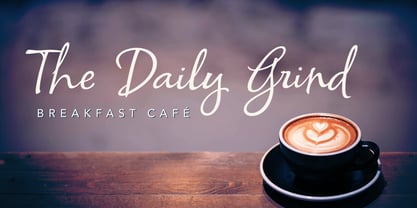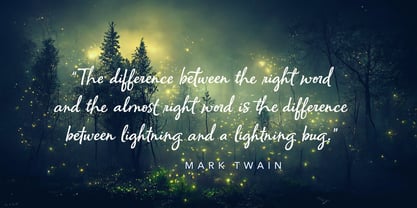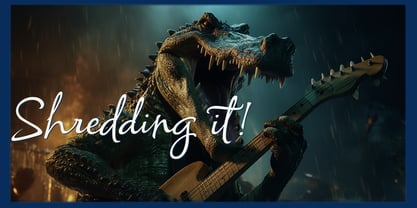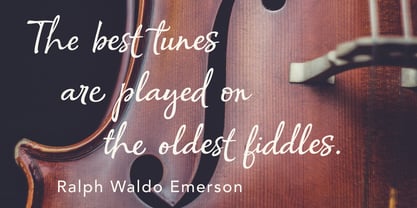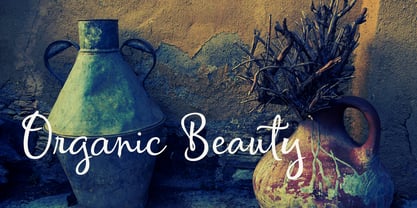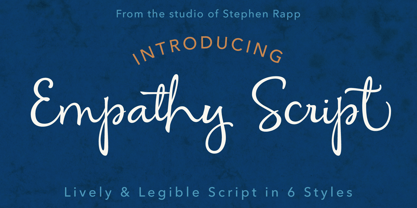
Empathy Script
von Stephen Rapp
Die Schriftfamilie Empathy Script wurde von Stephen W. Rapp entworfen und von Stephen Rapp veröffentlicht. Empathy Script enthält 6 Stile und Familienpaketoptionen.
As a former career lettering artist and font developer in the greeting card industry, I generated many lettering style sketches for projects. Empathy Script is based on one never used that I was drawn to revisit. Always a struggle to put a name to a font design. In this case, I just pulled a word that I felt needed to be heard and expressed more often.
Empathy Script moves with an enticing rhythm while maintaining the clear legibility needed for branding, headlines, and packaging. Beginning, ending, and alternate letters are all there. What this doesn’t have is cut and paste flourishes that all look the same. Using alternate “contextual” glyphs or letters, I try to create a more realistic sense of how a calligrapher or lettering artist would render a line of text. In natural writing and more fluid calligraphy, there are various types of connections as well as pen or brush lifts in a line of text.
Having plenty of contextual substitution and ligatures included makes settings in design applications full of life. There are more than 650 glyphs in each weight and style with sophisticated feature code making Empathy Script a “pro” level font. With six styles, Empathy Script should be perfect for many projects.
Über Stephen Rapp
Stephen Rapp is based out of Kent, OH. He came to type design through his work as a lettering artist at American Greetings. Having studied with many of the best calligraphers, Stephen has taught workshops across the nation and at international conferences. Pulling from his expertise with calligraphy and lettering he develops fonts designed to be both well crafted and user friendly. He also designs and develops proprietary fonts to meet the needs for both companies and individuals. His commercial fonts have garnered awards like the Type Director’s Club award.